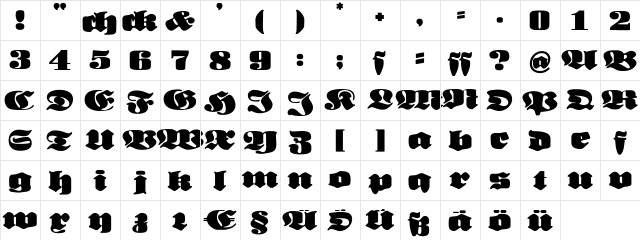
NeueFrakturExtraBold Regular
Design Context for NeueFrakturExtraBold Typeface
NeueFrakturExtraBold channels the dramatic heritage of Fraktur and Gothic scripts, bringing a sense of historical gravitas to any design. The heavy weight commands attention and anchors typographic hierarchies.
A natural fit for music packaging, gothic editorial design, and any project that needs historical weight.
Font Pairing: Pair with a clean neutral sans-serif for body copy to let NeueFrakturExtraBold's character lead without overwhelming the composition.
Pro Tip: Reserve NeueFrakturExtraBold for display and logo use — pair it with a clean sans-serif for body copy to prevent the composition from feeling oppressive.